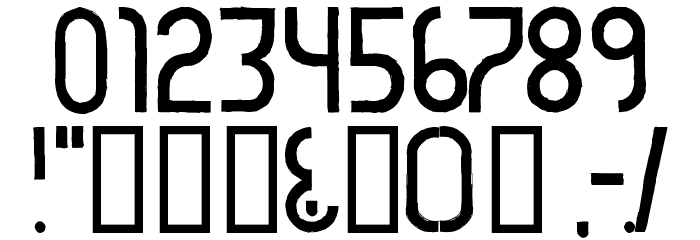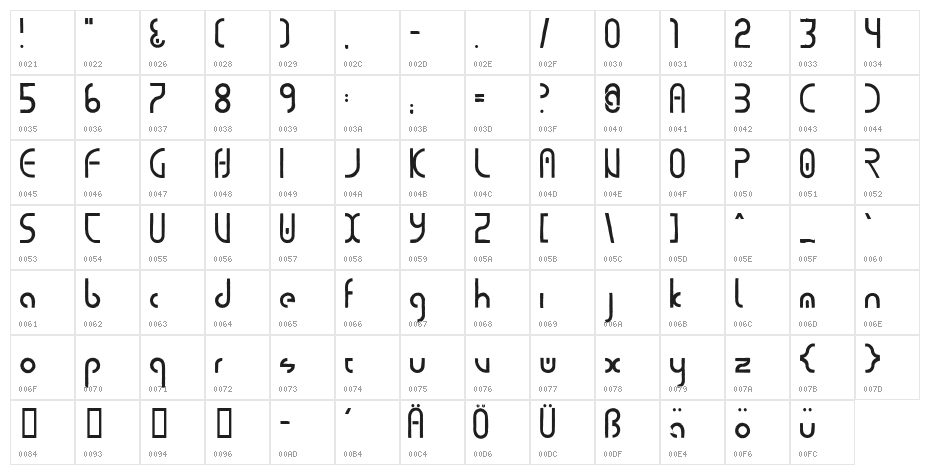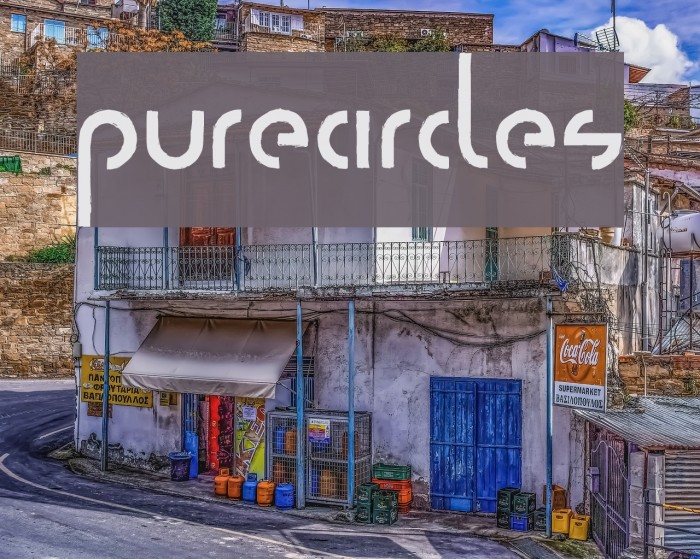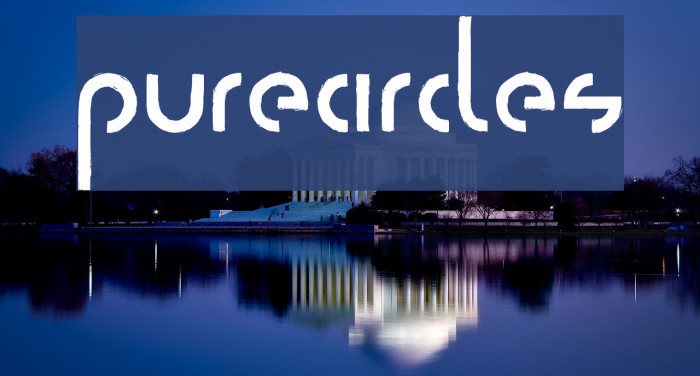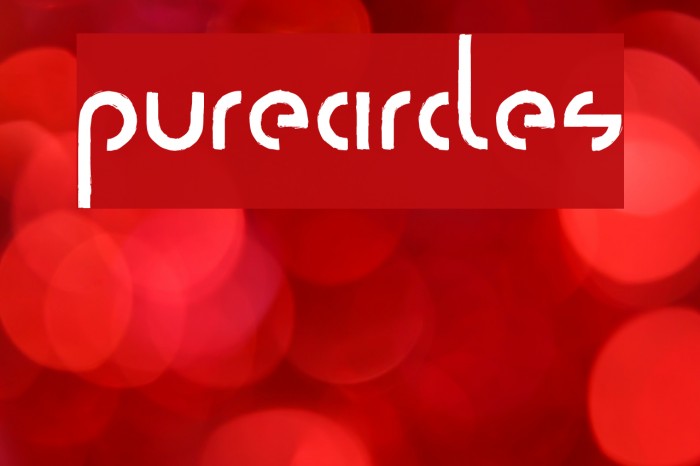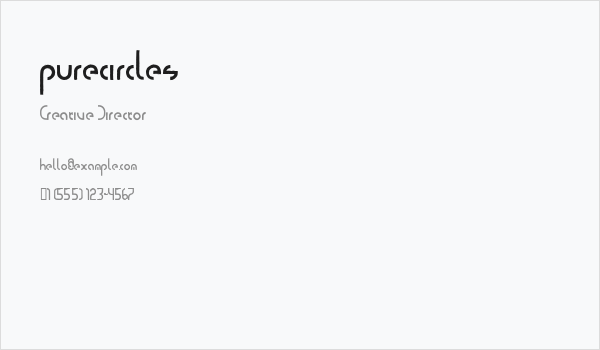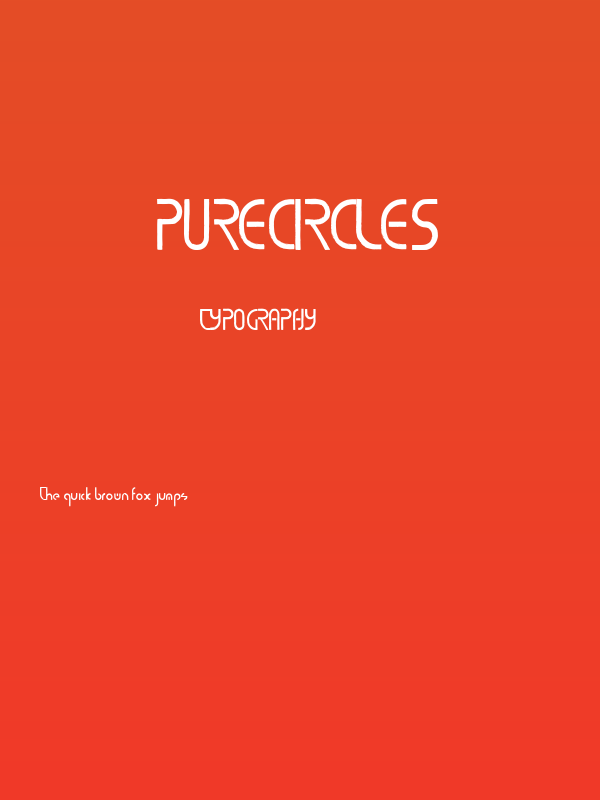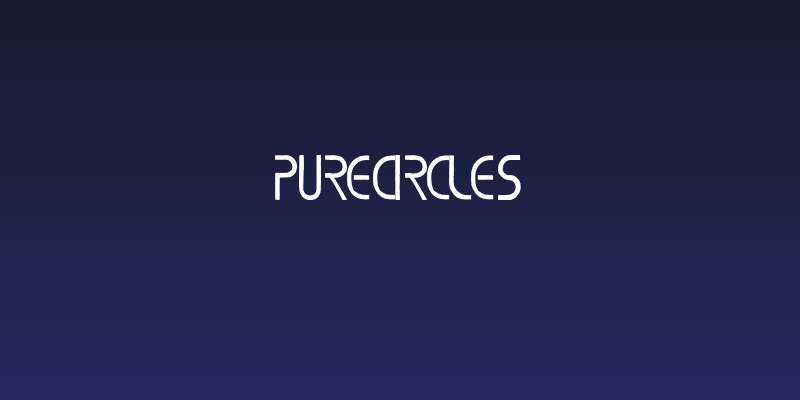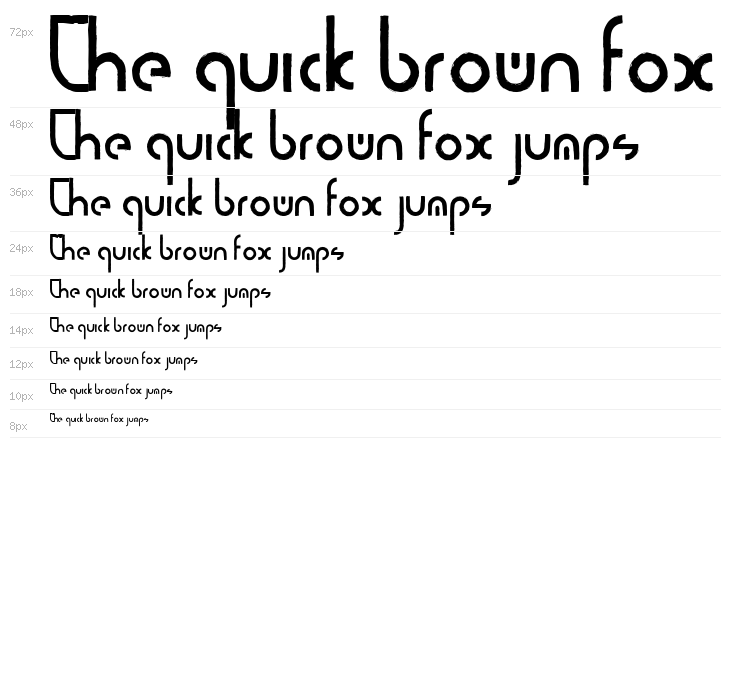
purecircles Font
purecircles Description
This font features a modern and geometric design, characterized by its circular and rounded shapes. The uppercase letters are bold and structured, with a consistent thickness that gives them a strong presence. The lowercase letters maintain the circular theme, offering a playful yet sophisticated look. Numbers are clear and distinct, following the same geometric style. Special characters are uniquely designed, adding to the font's overall aesthetic. This font is ideal for projects that require a contemporary and stylish appearance.
Proposed ProjectsIdeal for branding, logos, posters, and modern web design.